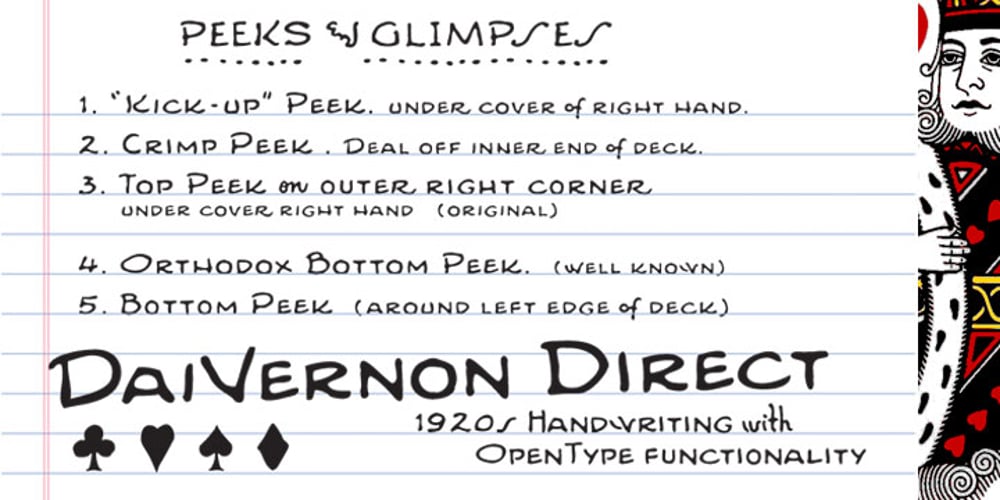
Dai Vernon Font Family was designed by Andrew Leman, Dai Vernon and published by E-phemera. Dai Vernon contains 2 styles and family package options. DaiVernon is based on the handwriting of card magician extraordinaire Dai Vernon. Known as “The Professor”, Vernon was a beloved expert in sleight-of-hand and card magic. These fonts are based on the penmanship in his notebooks from the 1920s, which feature almost no lowercase letters. DaiVernon Direct is based on what appears to be his hastier style, while DaiVernon Misdirect is based on his neater hand. Numerous OpenType bonus glyphs, contextual alternates and discretionary ligatures help to create the feel of his handwriting. Thanks go to Michael Albright, David Ben, and Gene Matsuura for helping to provide access to Vernon’s notebooks.